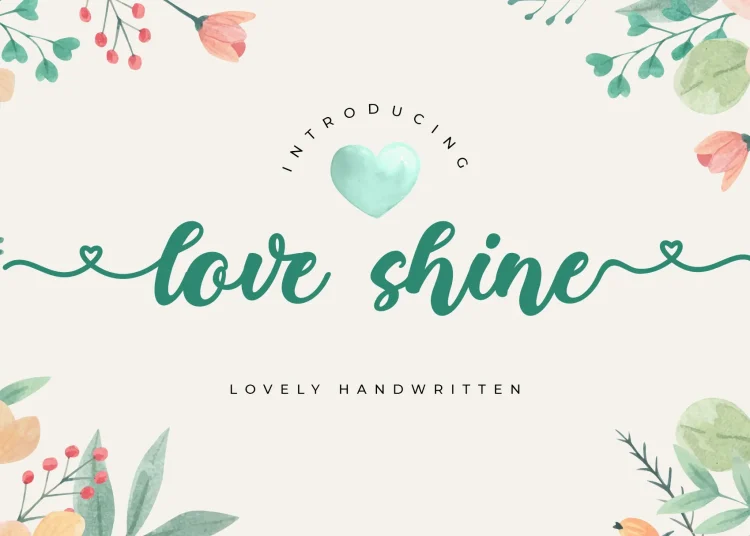
Love Shine Font
Love Shine is a charming and versatile font that effortlessly combines modernity with a feminine touch. Designed to be both catchy and easy to use, Love Shine features a contemporary, girly style that makes it perfect for a variety of design projects. With four alternate options for beginning swashes and decorative swashes, this font offers flexibility and customization, allowing you to tailor your designs to your specific needs.
Ideal for high-impact applications such as watermarks for wedding organizers, signature or logo designs, quotes, album covers, and business cards, Love Shine adds a touch of elegance and sophistication to your work. Its modern and feminine appeal ensures that it stands out in any context, whether you’re working on personal projects or professional designs.